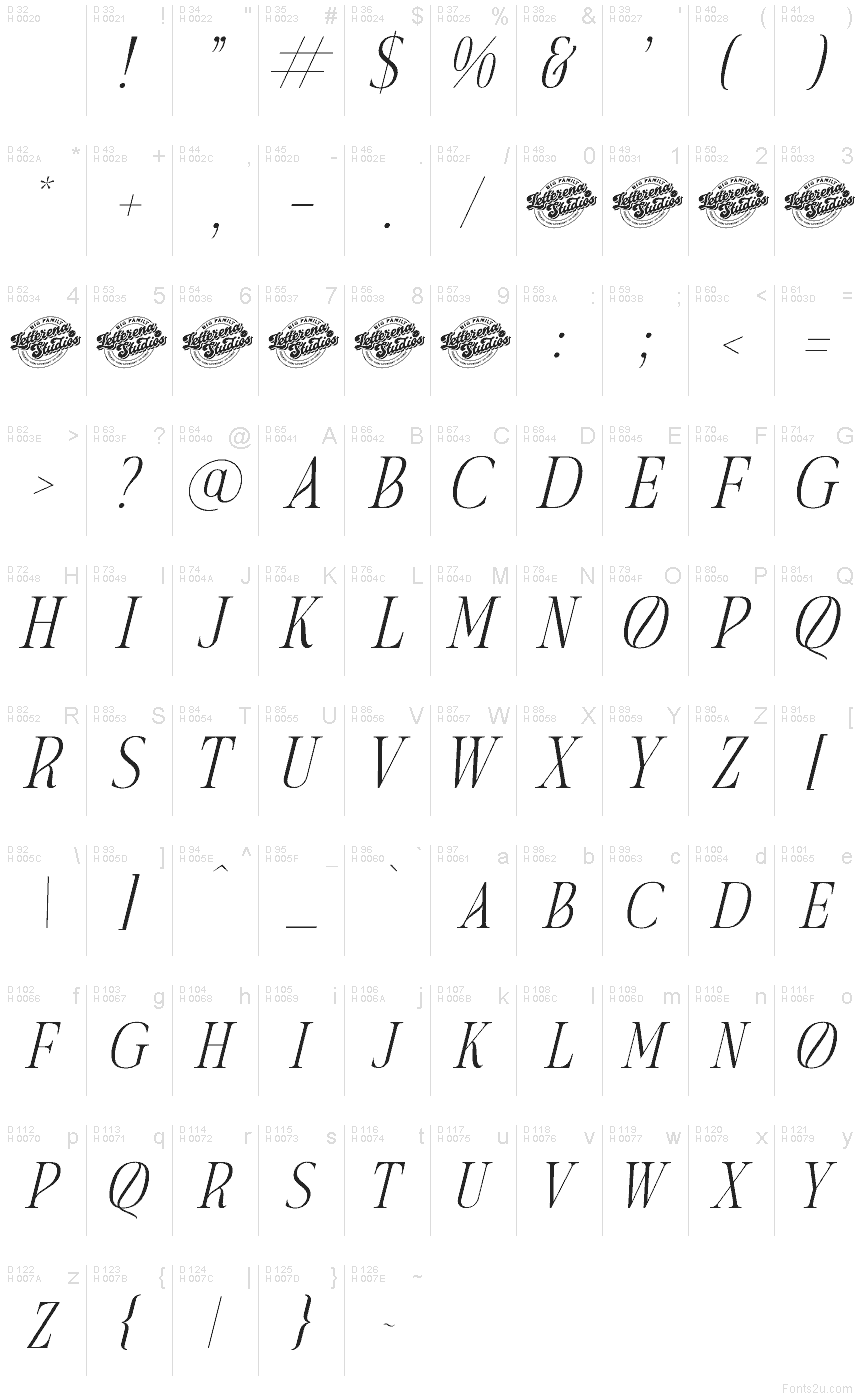
Seraneo DEMO VERSION Italic
Seraneo Italic font by Letterena Studios is a condensed serif font with an elegant, sophisticated look. The refined, classic appeal of each character makes it an excellent choice for highlighting text content while garnering charm and attracting attention.
Download this free serif font to use in visual identity projects where typeface is primary – invitations, postcards, limited edition packaging, water bottle labels and more. Use it on arts-related posters and museum exhibitions advertisements; on journal covers among other places.